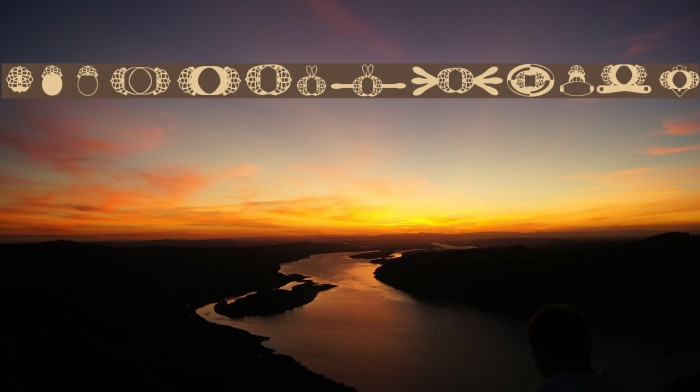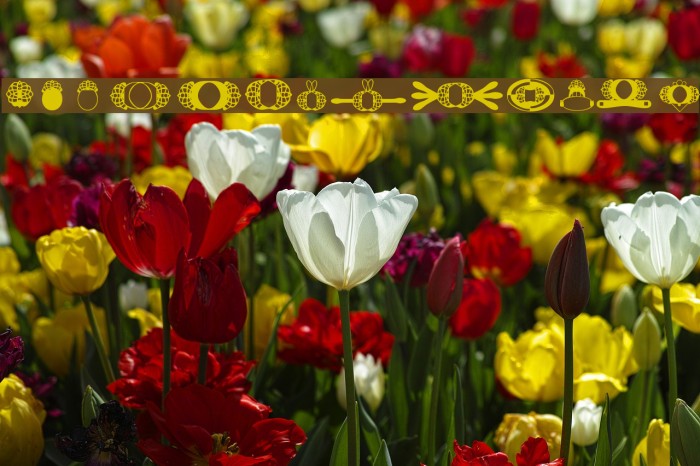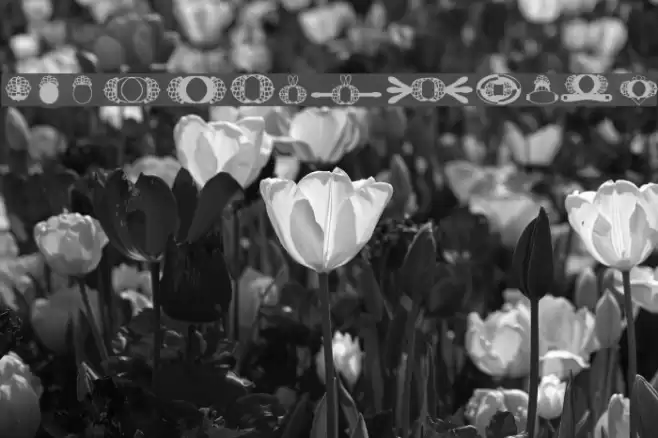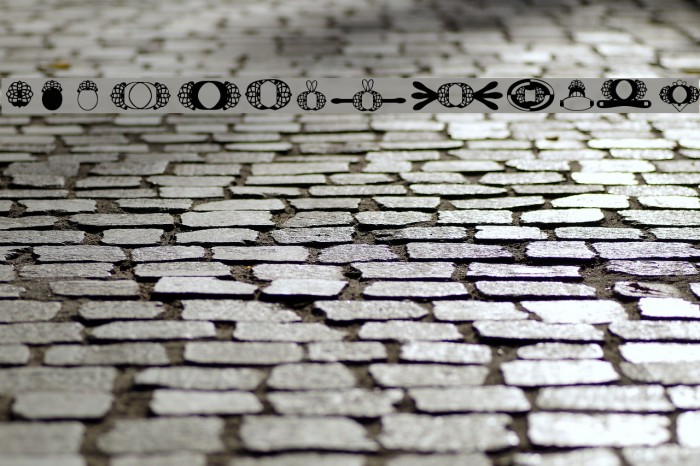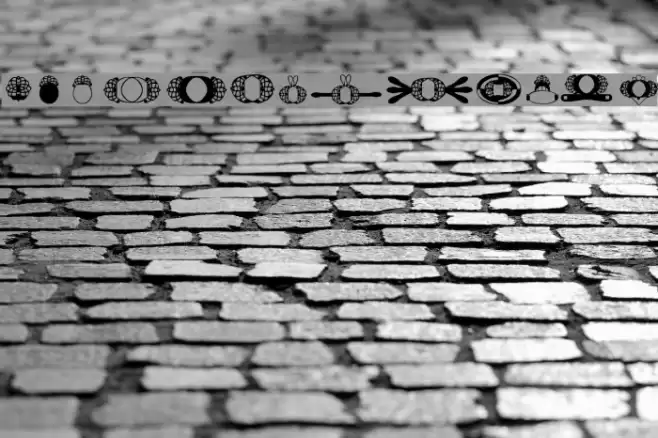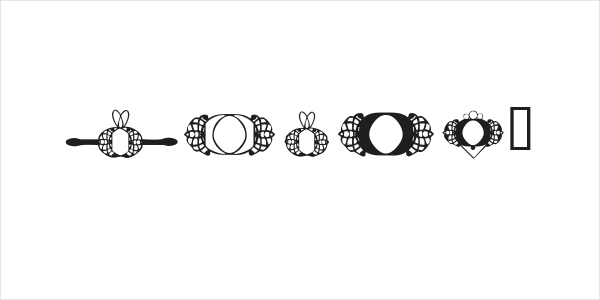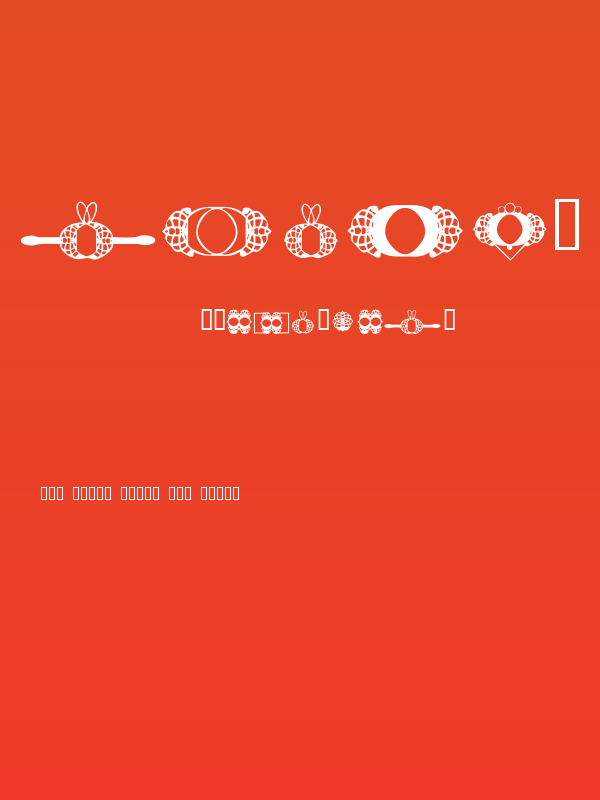
HDGEM8 Font
HDGEM8 Description
This is not a valid font. The image contains decorative symbols and shapes that do not correspond to standard alphanumeric characters or typical font glyphs. The elements appear to be more illustrative and ornamental, lacking the structure and consistency required for a functional typeface. These symbols might be used for specific decorative purposes but do not form a coherent font set for text representation.
| Use Case | Decorative elements, graphic design. |
| Proposed Projects | These symbols could be used for decorative borders, graphic design elements, or thematic artwork. |